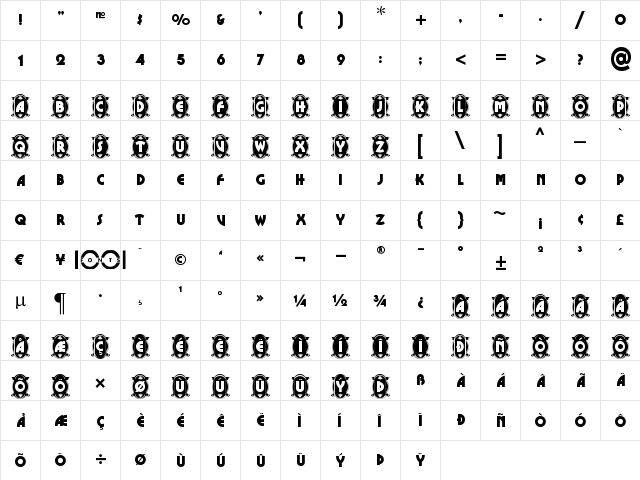
Cameo Appearance NF Regular
| Foundry | Nick's Fonts |
| Designer | Nick Curtis |
Design Context for Cameo Appearance NF Typeface
Cameo Appearance NF is a composed and adaptable typeface that performs quietly and consistently across a wide range of design contexts.